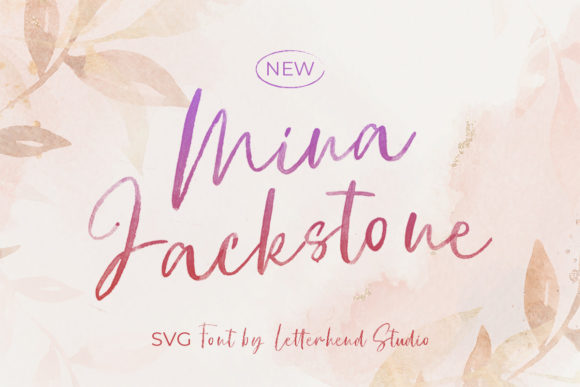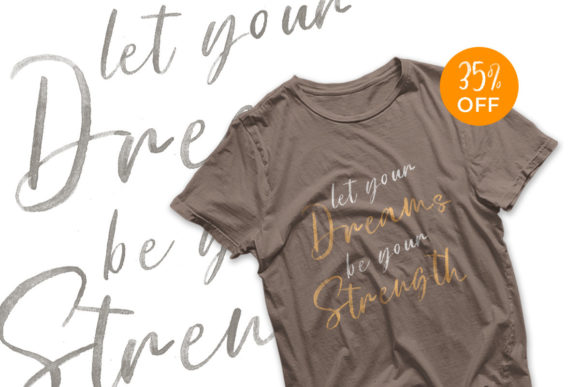
About Mina Jackstone Font
Mina Jackstone is a perfectly made script font.
It is applied on creations such as invitations, labels, logos, magazines, books, greeting / wedding cards, packaging, fashion, make up, stationery, novels, labels or any type of advertising purpose.